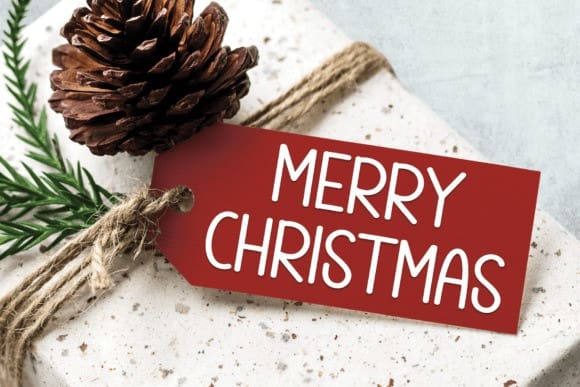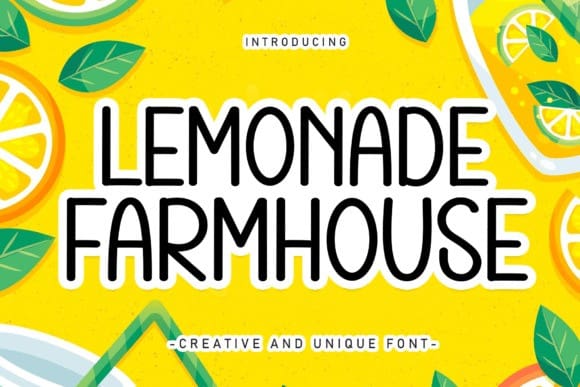
Lemonade Farmhouse Font
Lemonade Farmhouse Font is a sweet and friendly handwritten font. Fresh and cute, this font is ideal for writing wedding invitations, cards, or any other design that might need a fun touch!